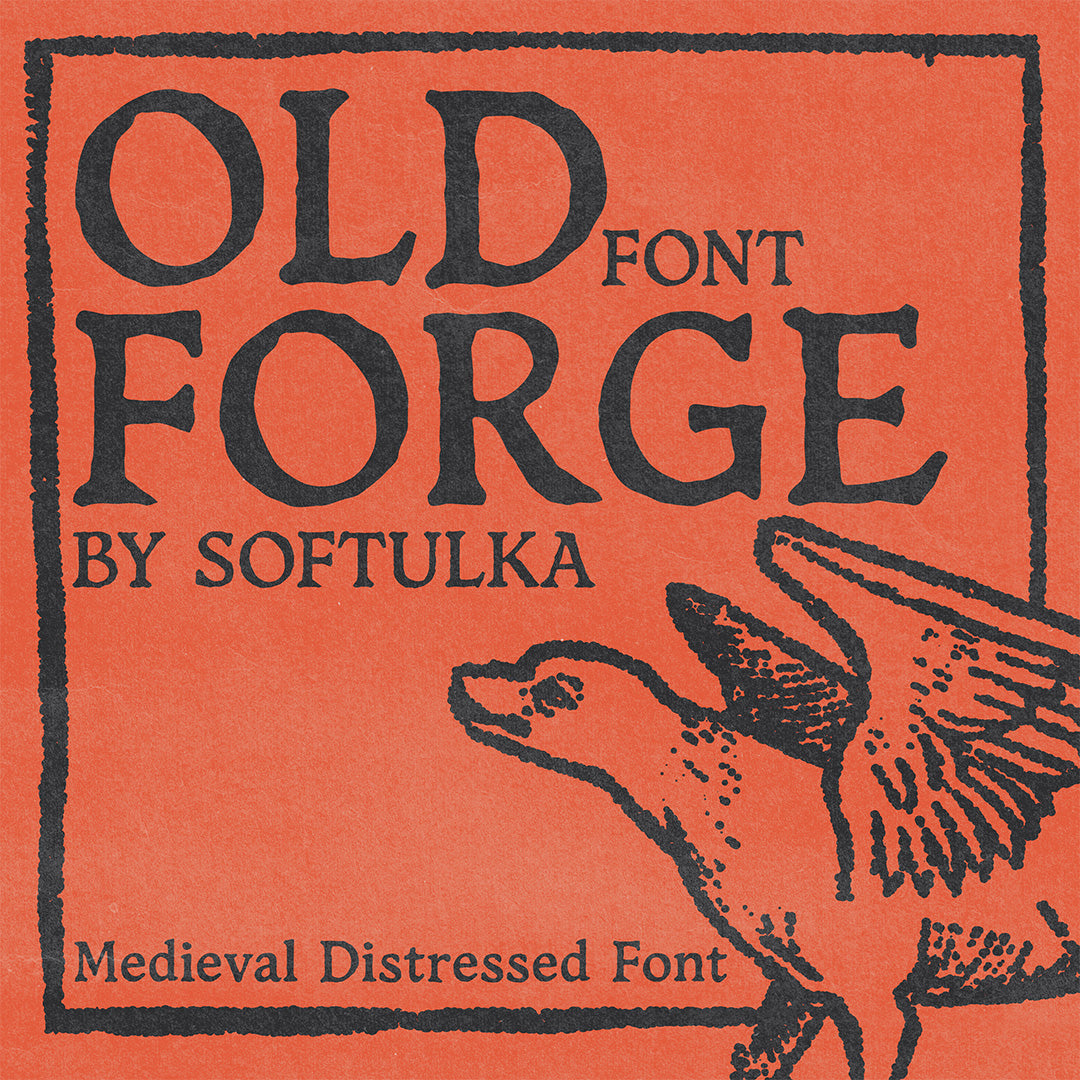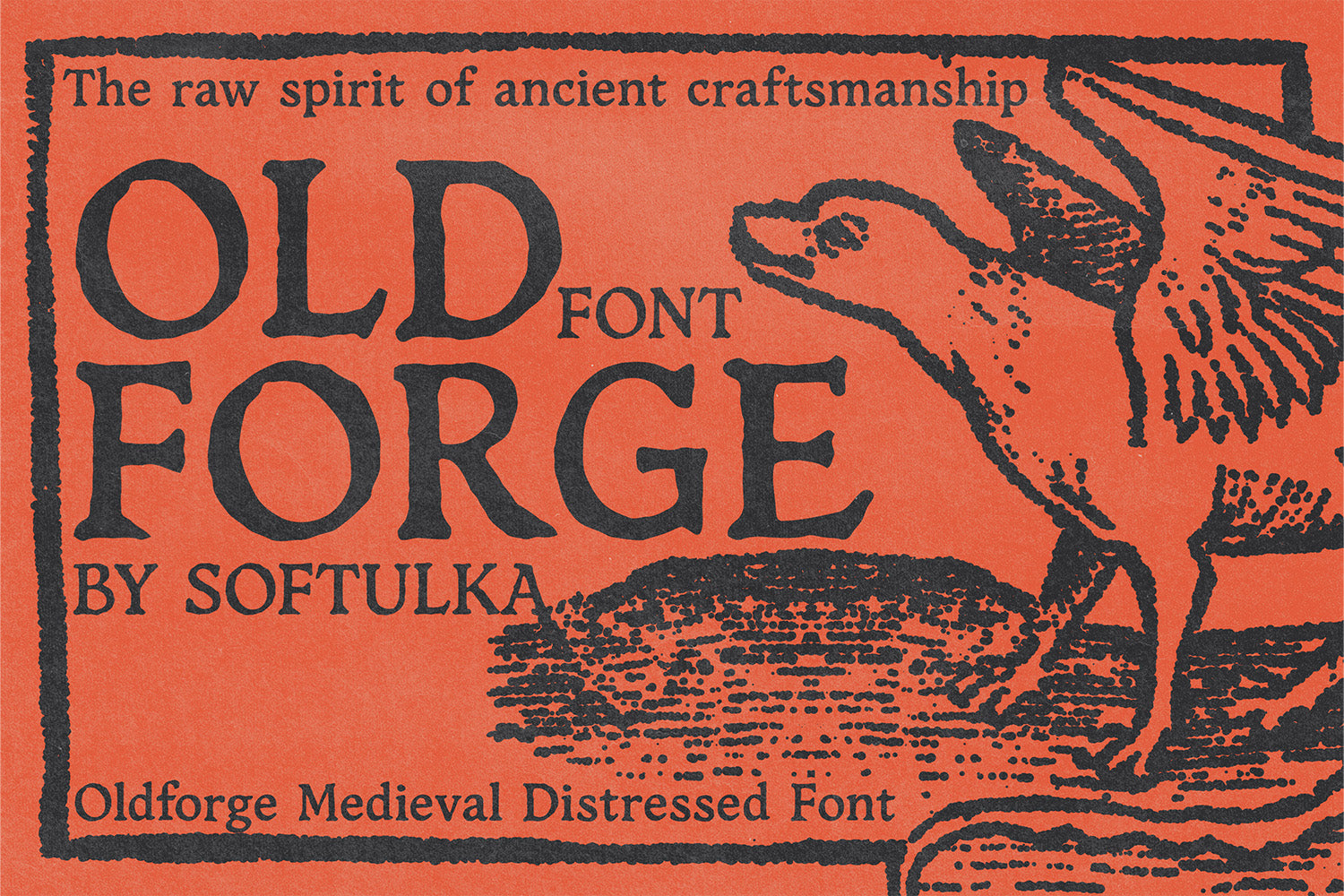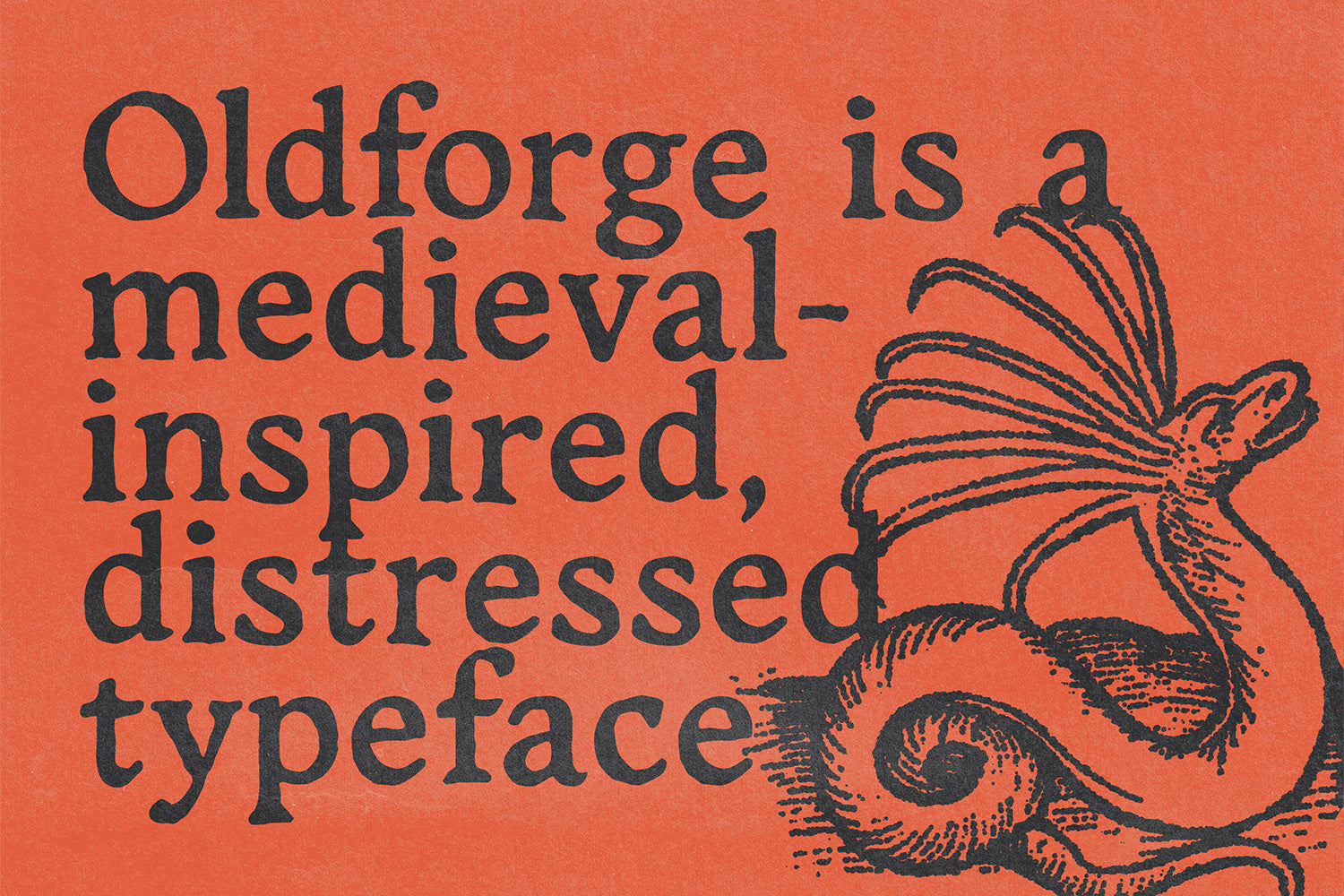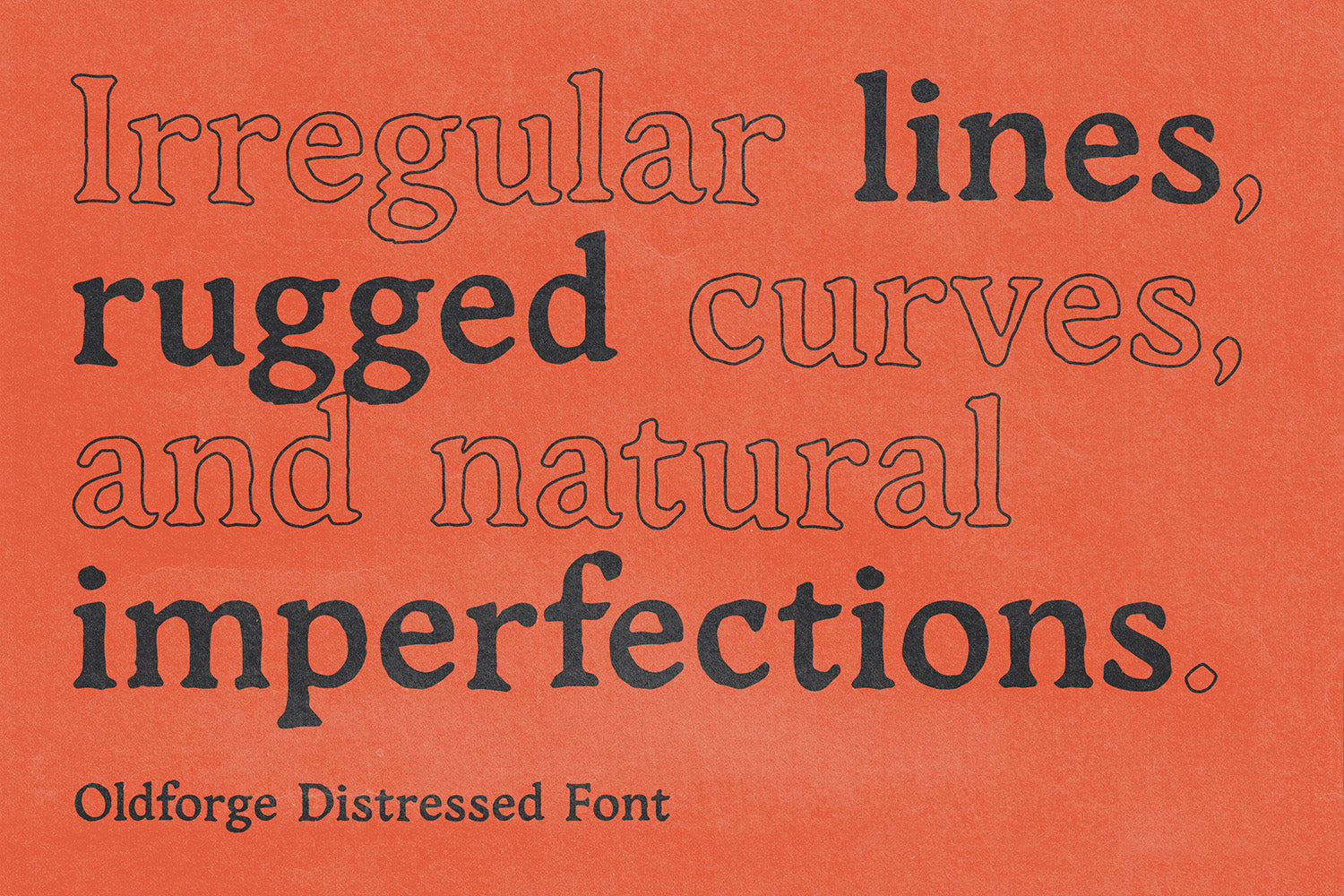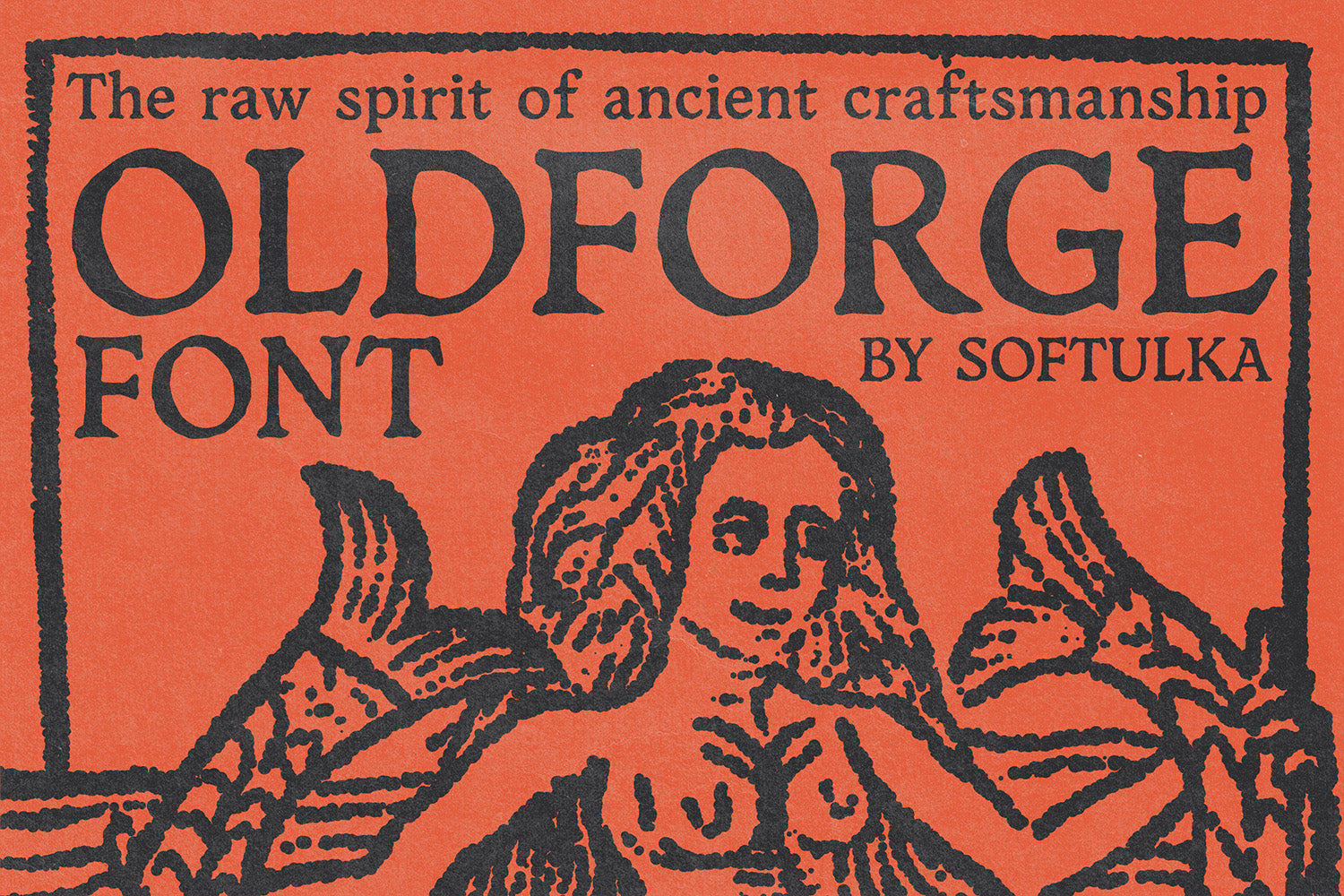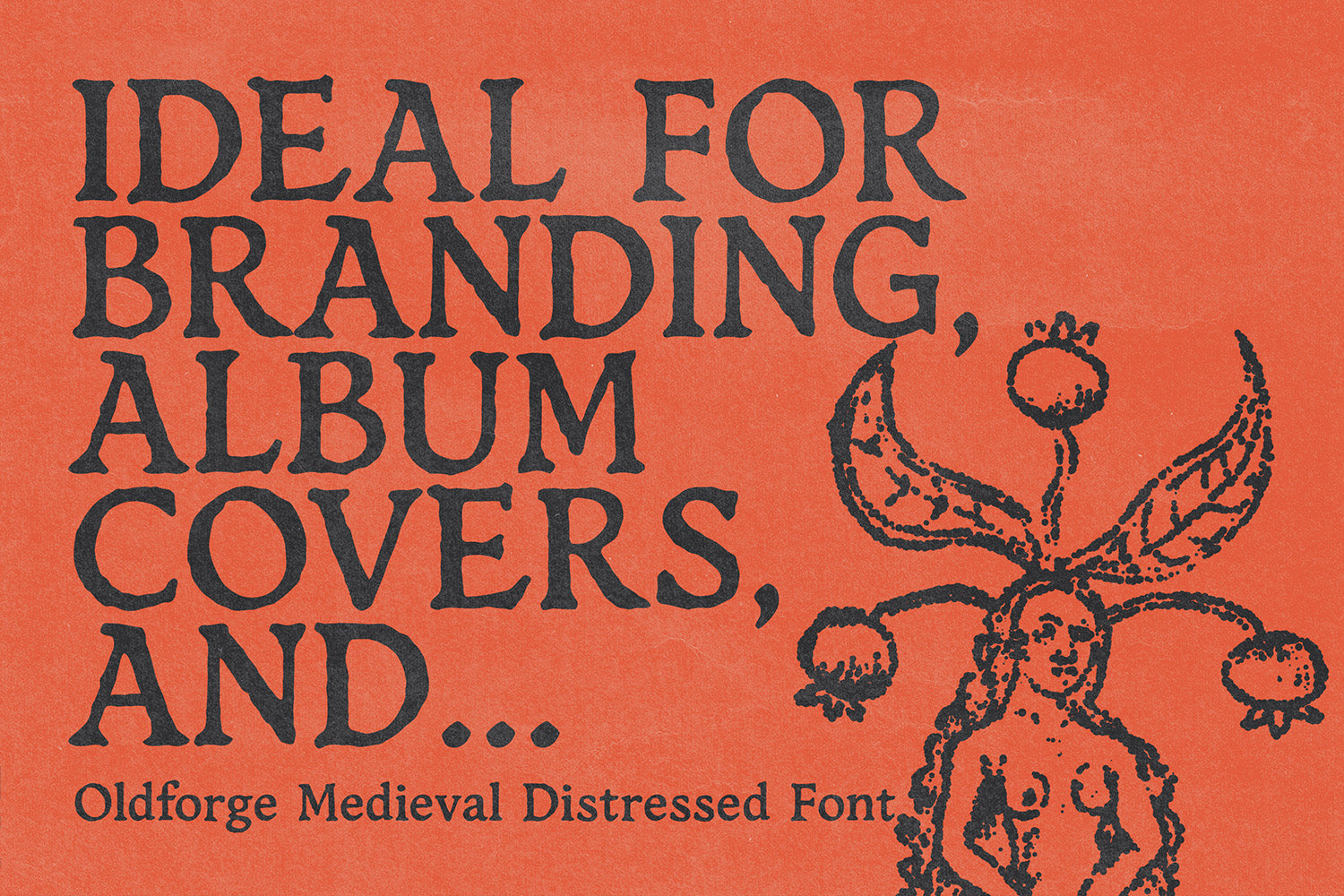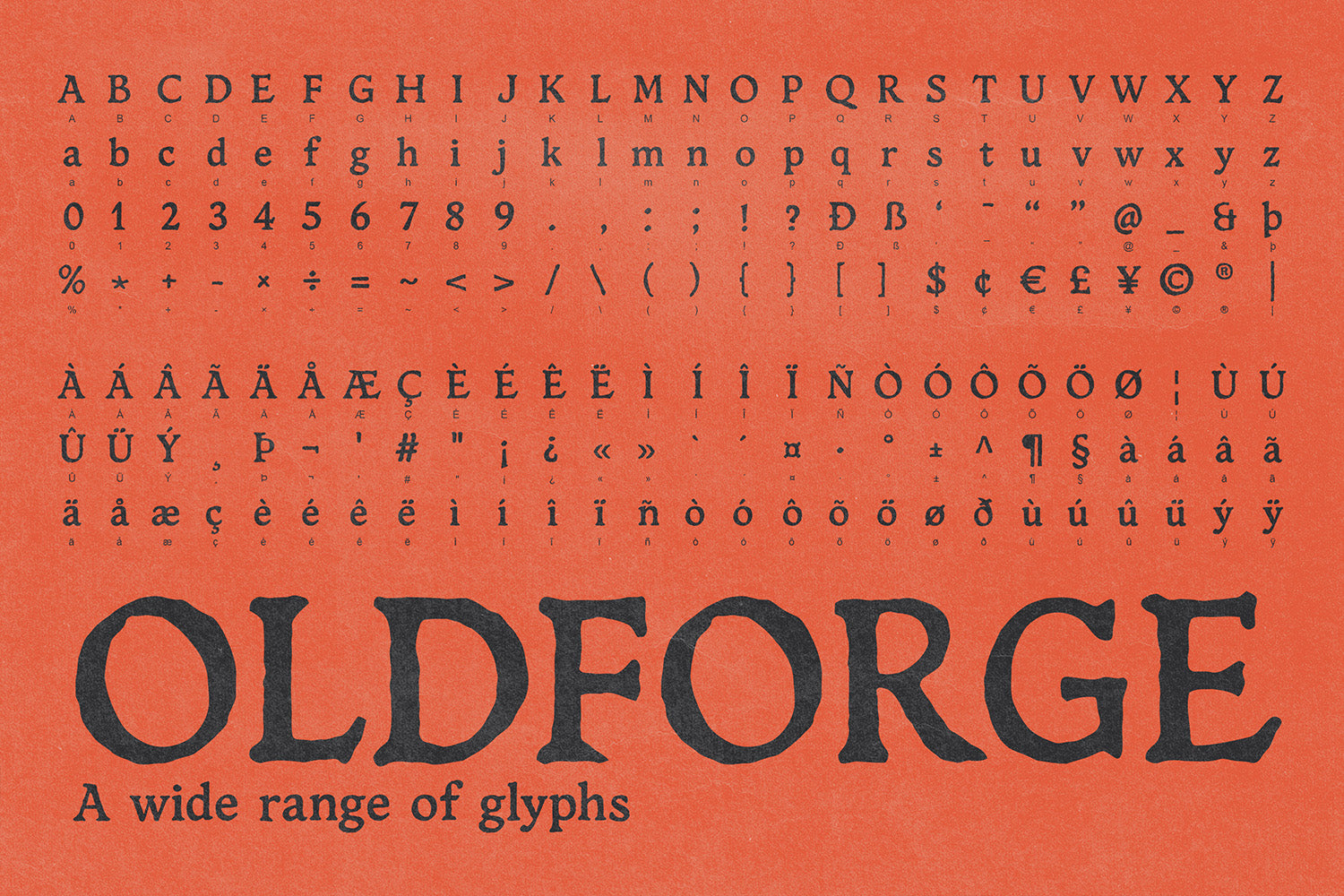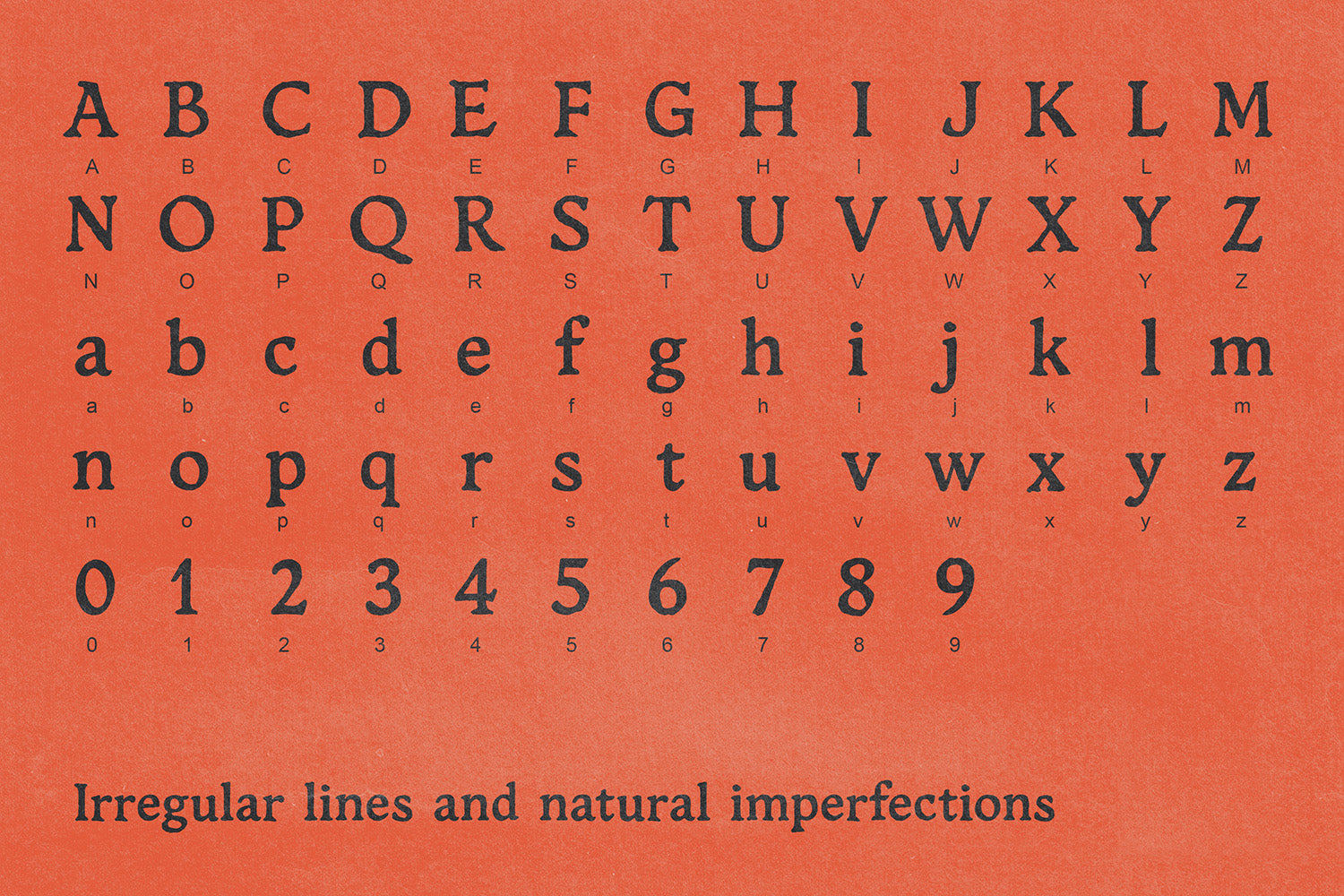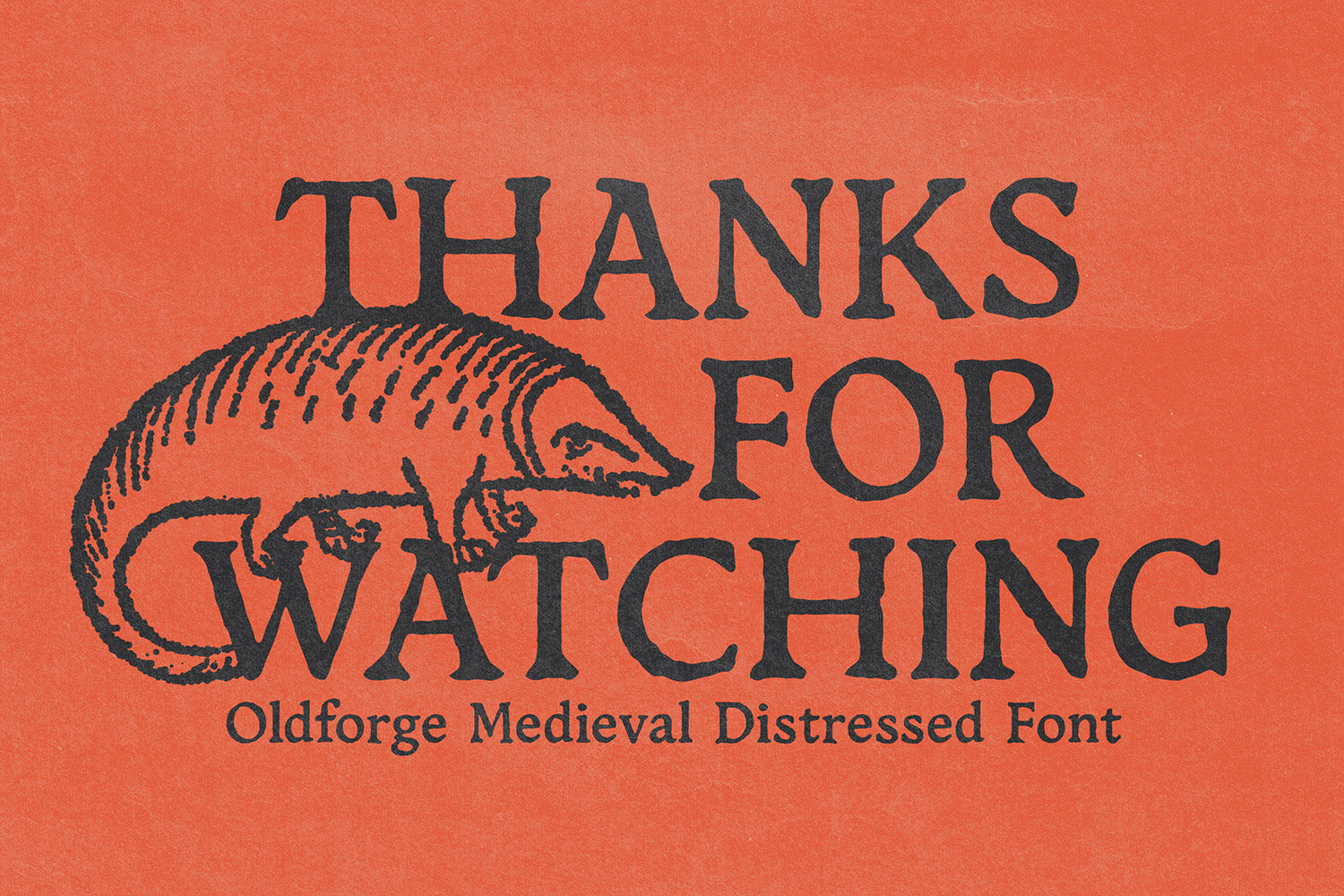
Oldforge Medieval Distressed Font
Oldforge is a medieval-inspired, distressed typeface that captures the raw spirit of ancient craftsmanship. Designed to echo the roughness of worn manuscripts, timeworn carvings, and hand-forged artifacts, Oldforge features irregular lines, rugged curves, and natural imperfections. Its authentic, slightly chaotic character makes it perfect for projects that require a vintage, historical, or fantasy atmosphere. Ideal for posters, branding, book covers, and game design, Oldforge stands out in headlines and large text settings, adding a unique, handcrafted touch to your creative work.